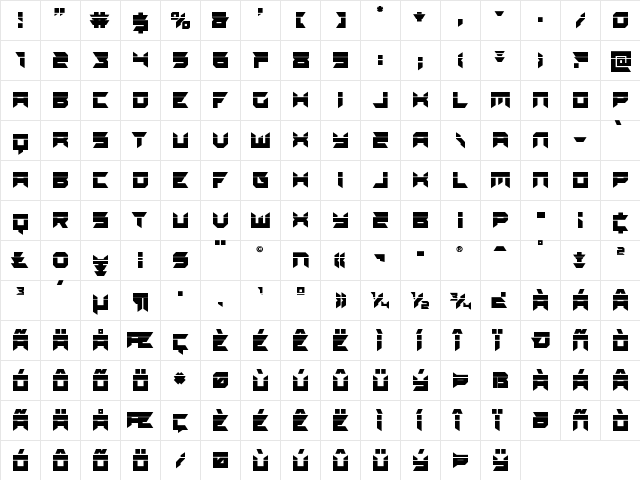
Dagger Dancer Laser Regular
Design Context for Dagger Dancer Laser Typeface
Dagger Dancer Laser is a composed and adaptable typeface that performs quietly and consistently across a wide range of design contexts.